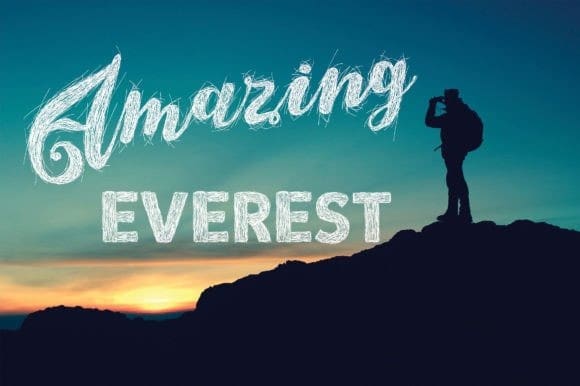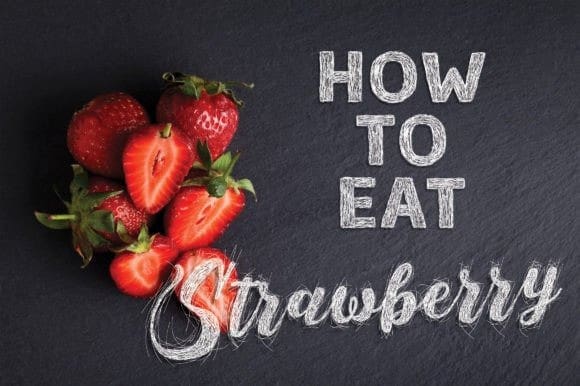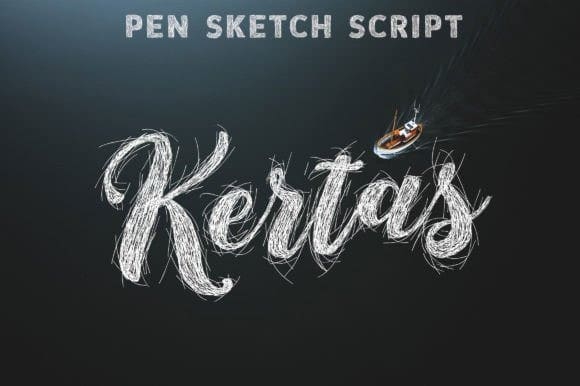
Kertas Script Font
Kertas Script Font, is a cool and unique, sketch-style handwritten font. Whether you’re using it for crafts, digital design, presentations, or making greeting cards, this font has the potential to become your favorite go-to font, no matter the occasion!